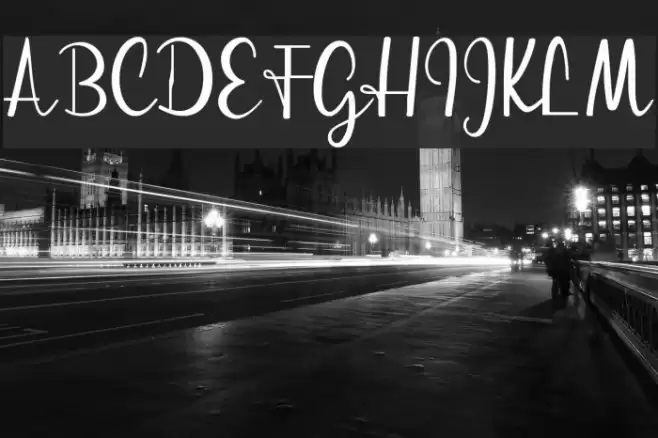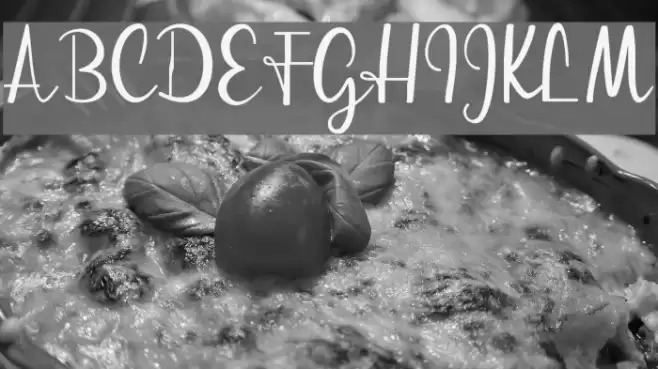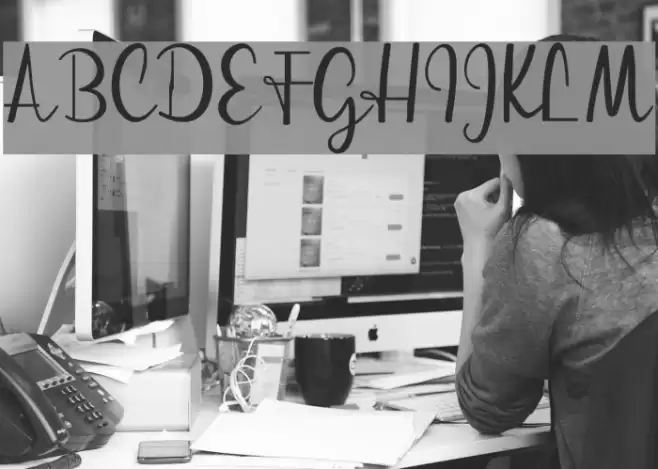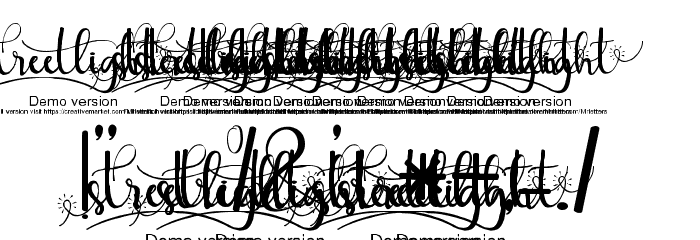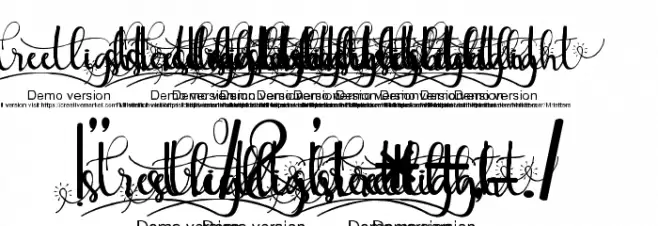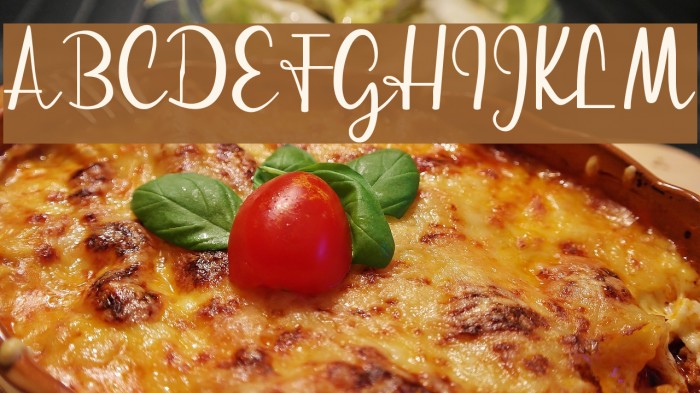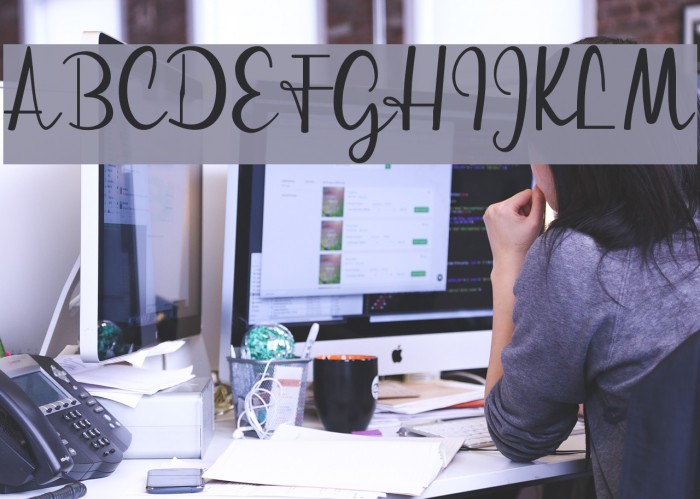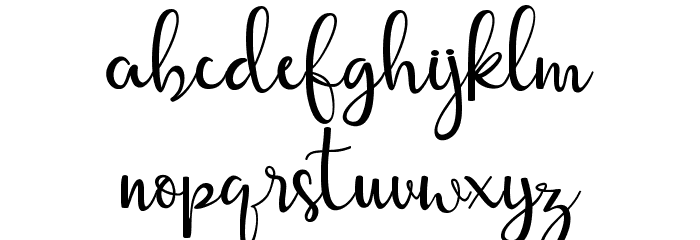
streetlightdemoversion-script Font
streetlightdemoversion-script Description
This font features a playful and elegant script style with a handwritten appearance. The uppercase letters are bold and slightly slanted, giving a dynamic and lively feel. The lowercase letters maintain a consistent flow with smooth curves and loops, enhancing the font's overall fluidity. The characters are well-spaced, ensuring readability while maintaining a whimsical charm. The numbers and special characters are designed to match the playful aesthetic, making them suitable for creative projects. The font's unique style is perfect for adding a personal touch to any design.
A playful and elegant script font with a handwritten style from Uncategorized fonts.
- Proposed Projects: Ideal for wedding invitations, greeting cards, logos, and branding materials.
- Use Case: Logos, Invitations, Greeting Cards